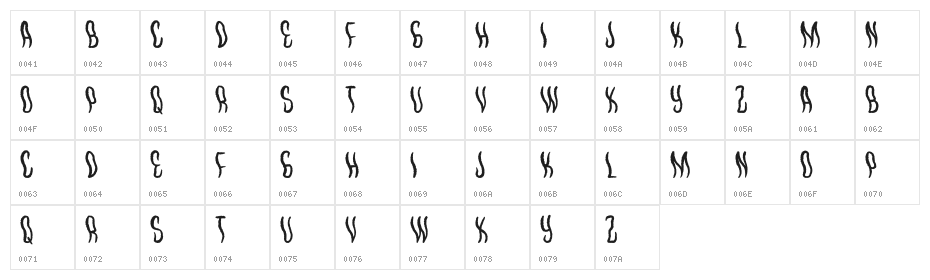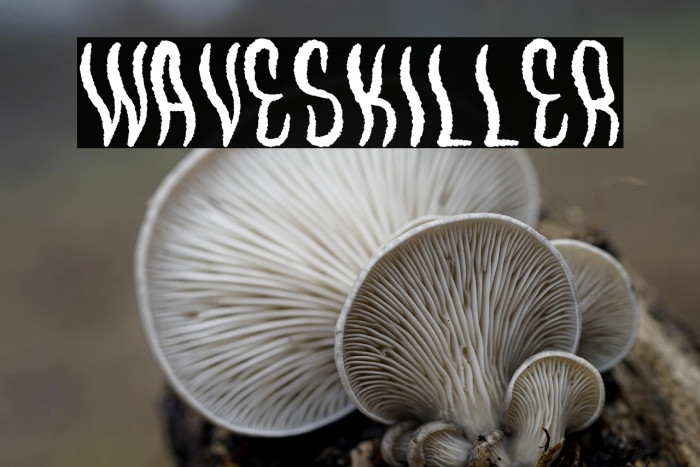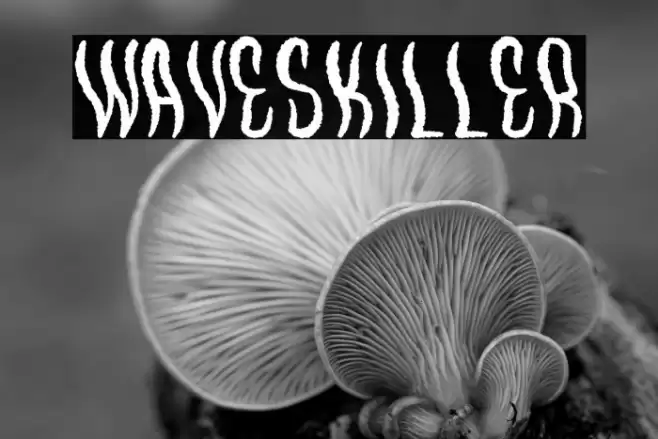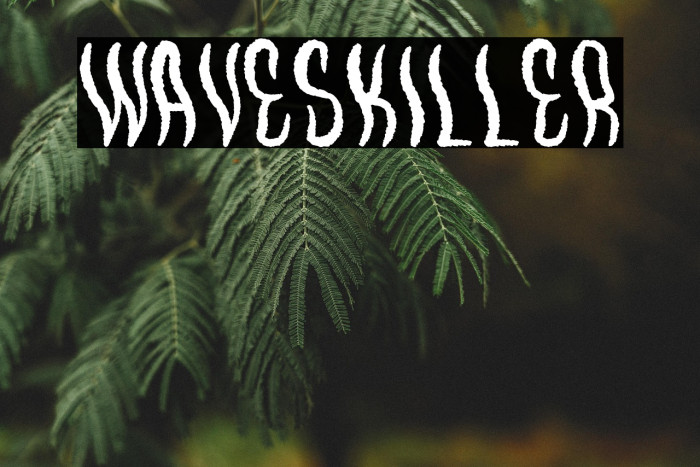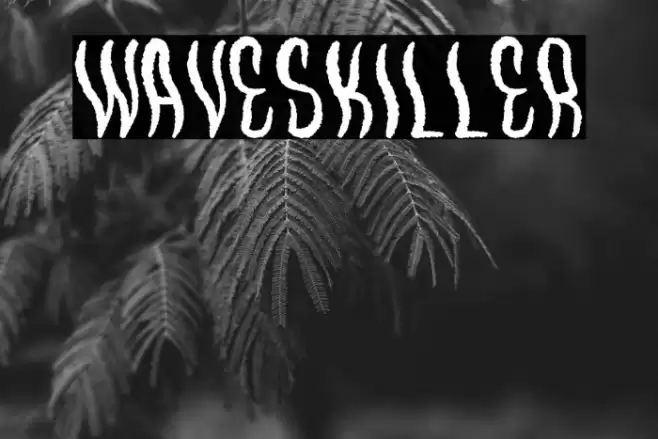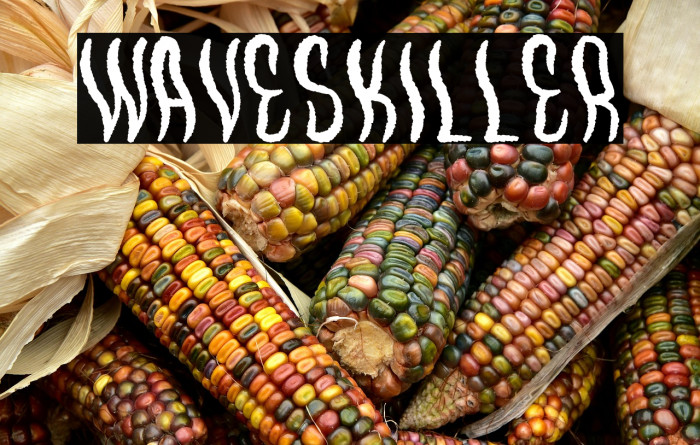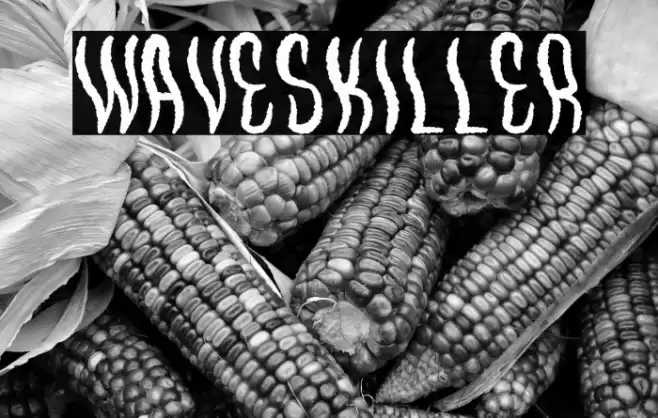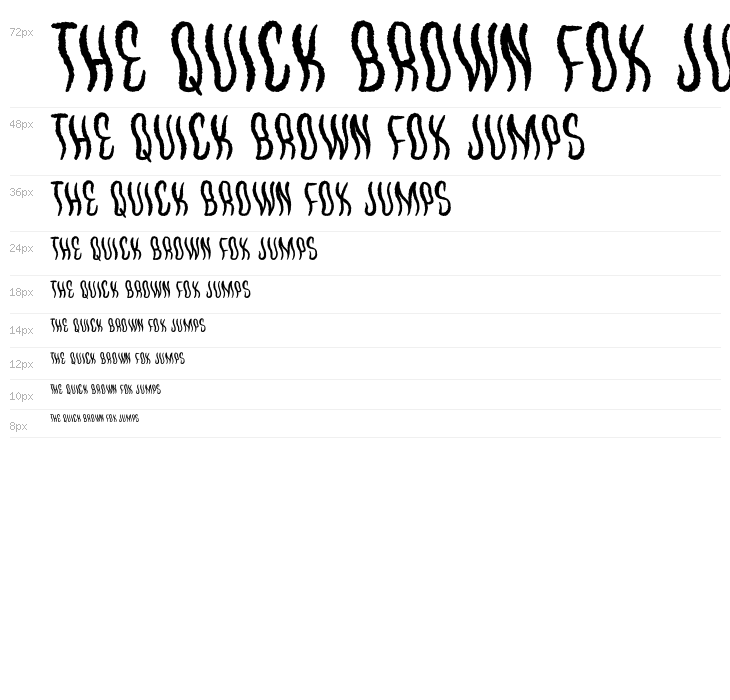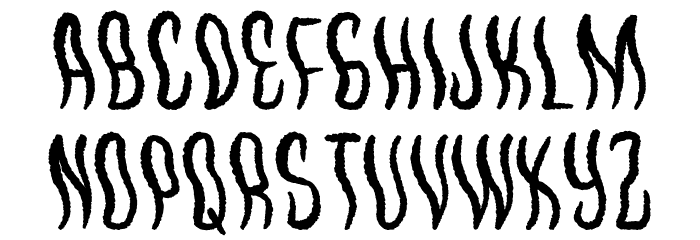
WavesKiller Font
WavesKiller Description
This font features a unique and dynamic design with characters that appear to be in motion, reminiscent of waves or flowing water. The strokes are uneven and jagged, giving the font a sense of energy and movement. Each letter has a distinct, organic shape, making it stand out with a bold presence. The overall appearance is both artistic and slightly chaotic, which can capture attention and convey a sense of creativity and spontaneity. The font's style is highly decorative, making it suitable for projects that require a strong visual impact.
| Proposed Projects | Ideal for album covers, posters, branding for surf or water sports, and creative event invitations. |